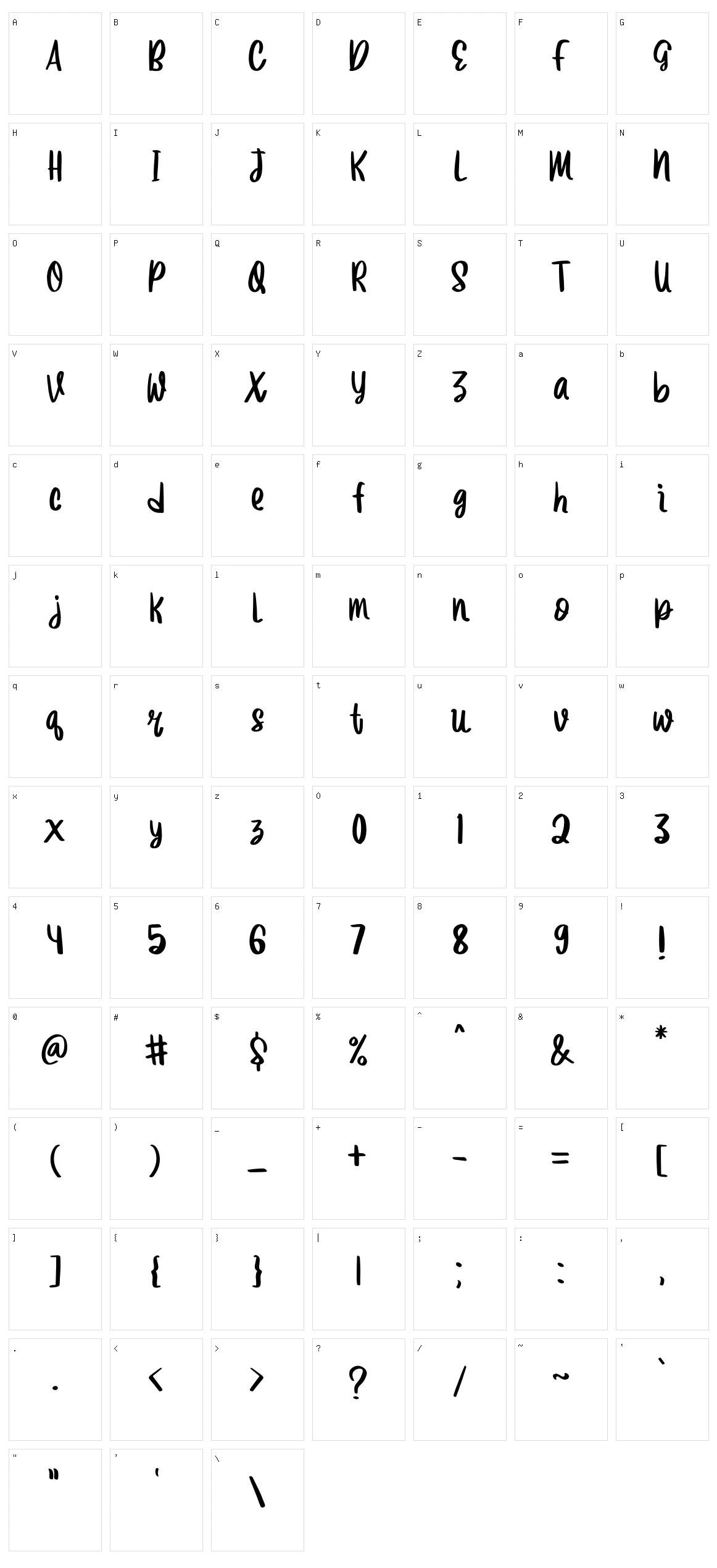
The free font Miracle Of Love is carefully designed by Booga Letter, showcasing a thoughtful balance of creativity and usability and falls under the Script font style. When you download the ZIP file, it contains only 31.79 KB of font files, making it lightweight and quick to download. Please review the license details below to understand permitted usage and distribution rights. If license information is not available, we recommend using this font for personal projects only or contacting the author directly for commercial usage permissions.